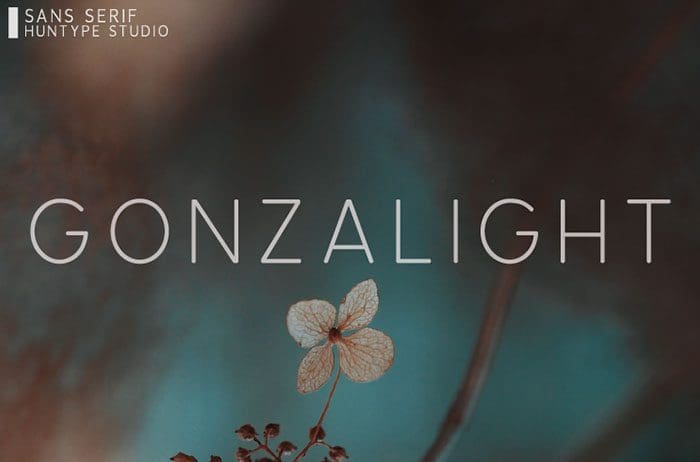
Gonzalight Sans Serif Font
Gonzalight is a clean and sophisticated sans serif font. It’s perfectly adept for use as large scale headlines, mastheads, titles, and much more! Thanks to Mas Anis for sharing this font! Take a look at this portfolio for more of his stunning fonts.